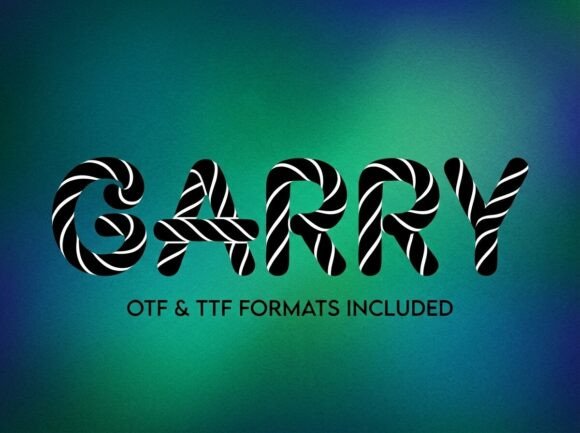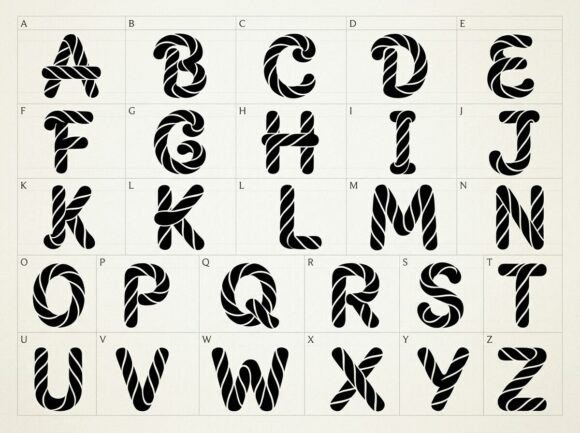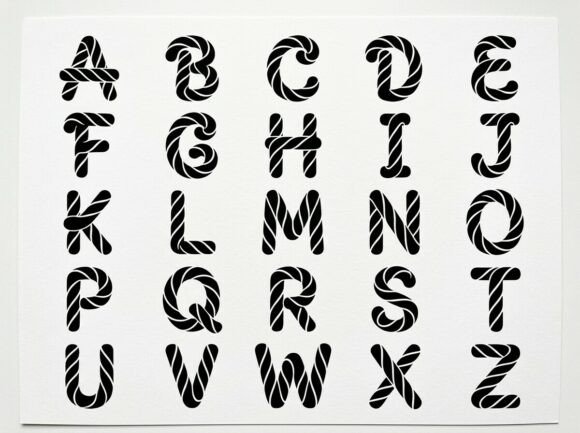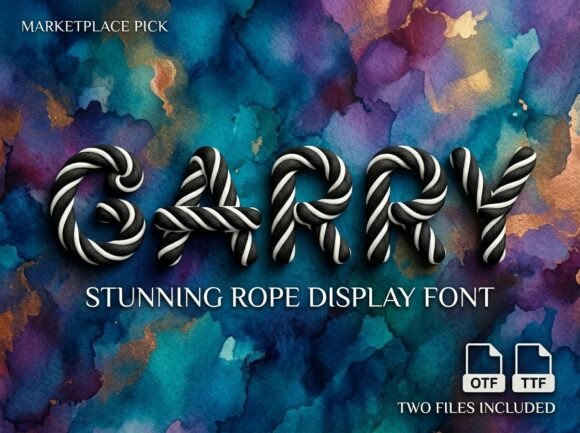
Introducing Garry Font: The Ultimate Display Font for Maximum Visual Impact
Are you looking for a font that can command attention and make your brand stand out? Look no further than Garry, a stunning rope display font designed to deliver maximum visual impact. With its unique blend of rhythmic, tactile energy and industrial silhouette, Garry is the perfect choice for designers and crafters who want to create bold and unforgettable visual identities.
The Unique Features of Garry Font
Garry font features massive, 3D-rendered letterforms characterized by a unique “candy-cane” rope twist of high-contrast black and white strands. This distinctive design element gives Garry its signature look and makes it instantly recognizable. The heavy visual weight and spiraling, industrial silhouette of the font make it perfect for use in nautical branding, high-octane sports graphics, creative streetwear logos, and high-impact digital posters.
Garry font is designed to deliver a sense of handcrafted strength and professional, artistic intensity to your visual identity. Whether you’re a designer looking to create a bold and eye-catching logo or a crafter seeking to add a touch of industrial chic to your project, Garry is the perfect choice. The font’s unique blend of texture and contrast makes it perfect for use in a variety of applications, from signage and posters to apparel and accessories.
Key Benefits of Using Garry Font
- Maximum Visual Impact: Garry font is designed to command attention and make your brand stand out. Its heavy visual weight and spiraling, industrial silhouette make it perfect for use in high-impact applications.
- Handcrafted Strength: The font’s unique blend of texture and contrast gives it a handcrafted feel that’s perfect for designers and crafters who want to add a touch of industrial chic to their projects.
- Professional, Artistic Intensity: Garry font delivers a sense of professional, artistic intensity that’s perfect for designers and crafters who want to create bold and unforgettable visual identities.
- Versatility: Garry font is perfect for use in a variety of applications, from signage and posters to apparel and accessories.
How to Use Garry Font
Garry font is easy to use and can be incorporated into a variety of design projects. Here are a few tips for getting the most out of this stunning display font:
- Use it as a statement piece: Garry font is designed to command attention, so use it as a statement piece in your design. Pair it with simpler fonts to create a bold and eye-catching visual identity.
- Experiment with colors: The high-contrast black and white strands of Garry font make it perfect for use with bold and bright colors. Experiment with different color schemes to find the one that works best for your brand.
- Add texture and contrast: Garry font is all about texture and contrast, so don’t be afraid to add more texture and contrast to your design. Use images, patterns, and other design elements to create a visually interesting and dynamic design.